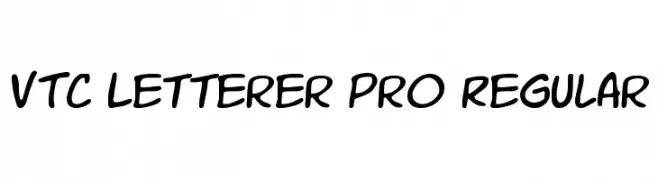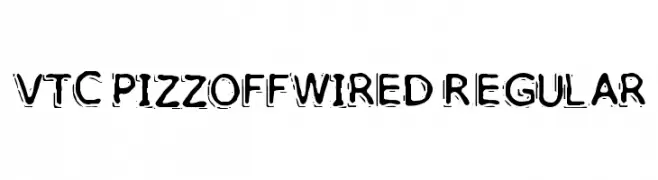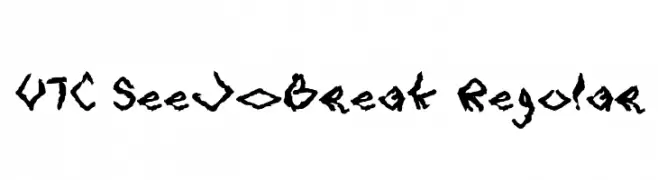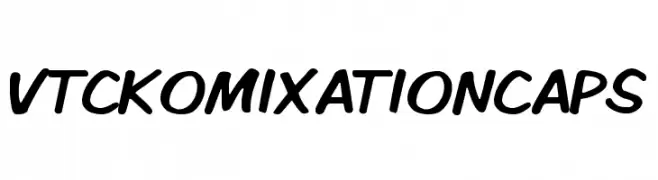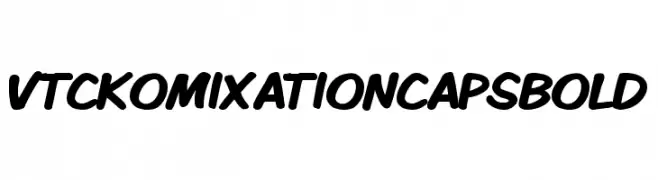
A bold, three-dimensional font with sharp angles and a futuristic style.
A bold, gothic-inspired font with sharp, angular serifs and intricate detailing.
A bold, decorative font with sharp angles and a shadow effect, ideal for dramatic designs.
A bold, distressed font with a grunge aesthetic and rugged texture.
A bold, outlined font with a playful, three-dimensional style.
A bold, slanted font with a dynamic and energetic style.
A bold, playful handwritten font with a dynamic slant.
A bold, playful, hand-drawn font with a dynamic and energetic style.
Bold, playful font with a 3D shadow effect and rounded edges.
A bold, 3D font with a playful and dynamic style, perfect for attention-grabbing designs.
A bold, italic font with dynamic, slanted characters and thick strokes.
A bold, playful handwritten font with a dynamic and energetic style.
A bold, 3D tilted font with a playful, cartoon-like style.
A bold, 3D-style font with playful outlines and a dynamic appearance.
A bold, tall, and dynamic font perfect for attention-grabbing designs.
A bold, distressed decorative font with a rugged, grunge-like texture.
A bold, comic-style handwritten font with a playful and dynamic appearance.
A bold, playful font with rounded edges and a dynamic, handwritten style.
A bold, italicized font with a playful and dynamic style.
A bold, playful handwritten font with thick, rounded strokes and a slightly slanted orientation.
A bold, italicized, comic-inspired font with thick, rounded strokes.
A playful, bold font with rounded edges and a comic book style.
A playful, comic-style handwritten font with bold, rounded characters.
A bold, playful, hand-drawn font with rounded edges and a whimsical style.
A playful, italicized handwritten font with bold, rounded strokes.
A playful, bold handwritten font with thick strokes and rounded edges.
A bold, playful handwritten font with a comic book style.
A playful, handwritten italic font with a comic-like style.